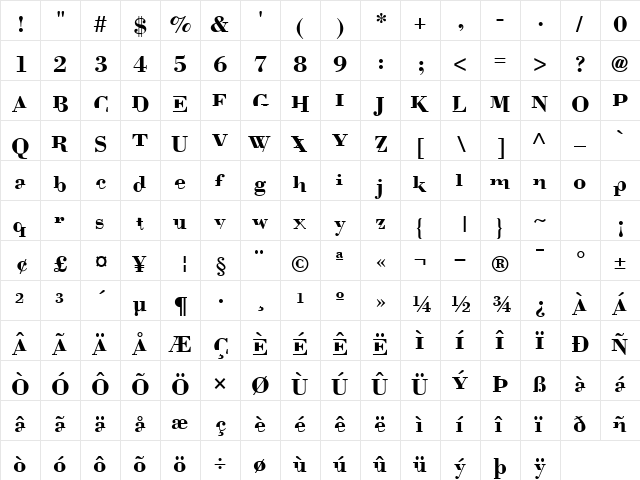
BodoniMutant Regular
Design Context for BodoniMutant Typeface
BodoniMutant takes a measured approach to typography — its balanced proportions and neutral character make it a reliable workhorse for both digital and print work.
Pro Tip: Use BodoniMutant in both headline and body roles to test its range before committing to a single application.